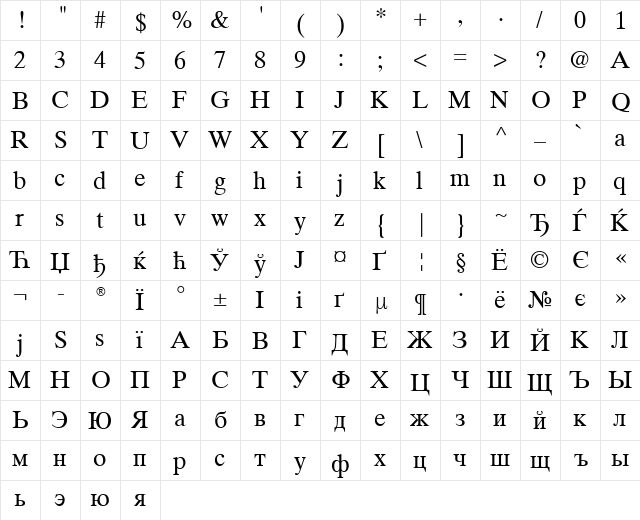
Times Ten Cyr Upright Regular
Design Context for Times Ten Cyr Upright Typeface
Times Ten Cyr Upright is a composed and adaptable typeface that performs quietly and consistently across a wide range of design contexts.